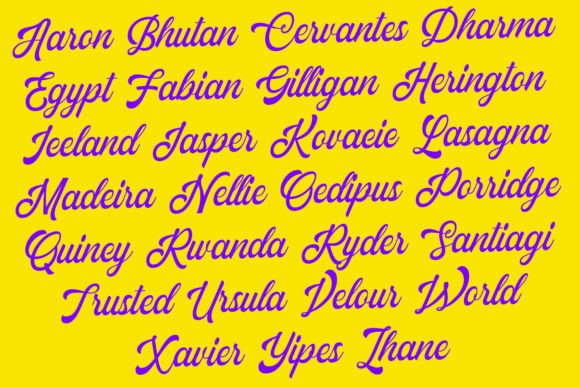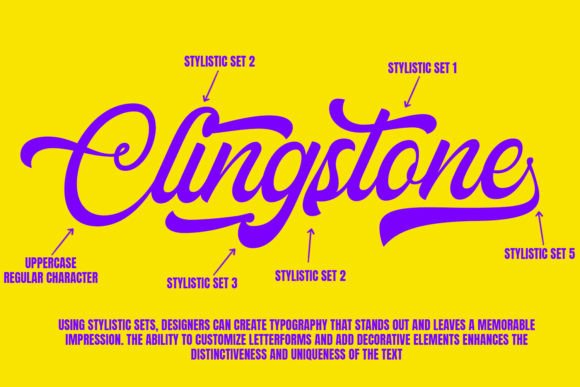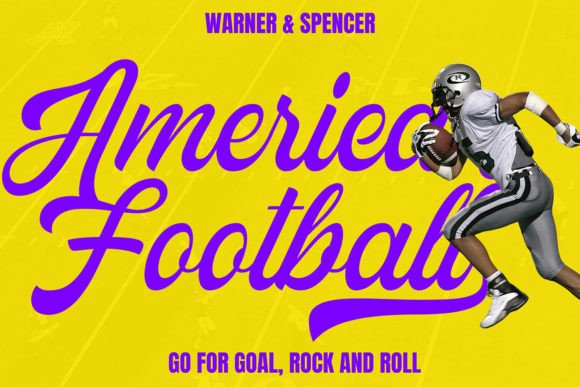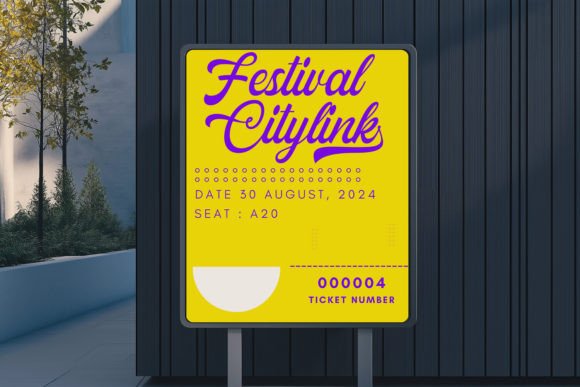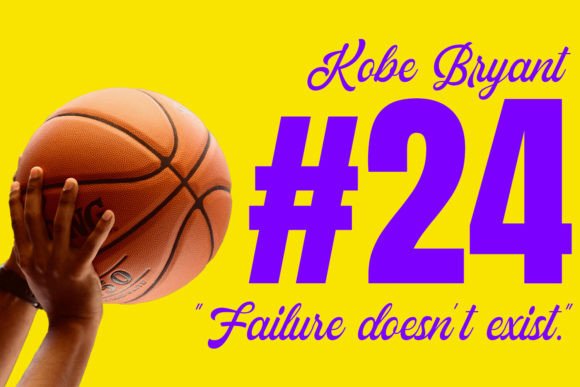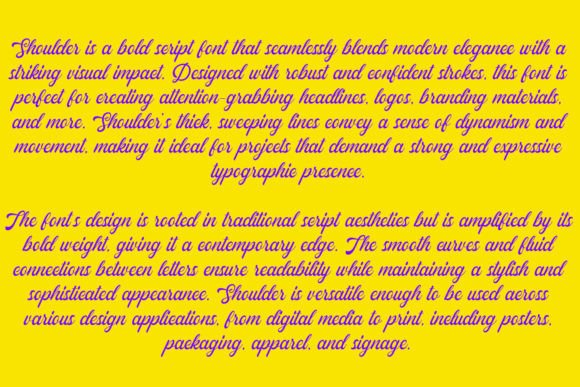
Introduction to Shoulder Font
Have you ever stared at a blank page, waiting for that spark of creativity to strike? It’s a feeling every designer knows all too well. But sometimes, all it takes is one font to set the tone for an entire project. For me, that font is the Shoulder Font – a bold script font that exudes elegance and assertiveness.
Whether you’re working on a high-profile branding project or a simple packaging design, the Shoulder Font is a versatile and reliable choice. Its flowing letterforms make it perfect for logos, headlines, and any other design element where you want to make a statement. And the best part? With a high-quality font like this, you can create stunning designs with a transparent background, giving your project a polished and professional look.
Key Features of Shoulder Font
- High-quality font design ideal for creative projects, offering a unique and stylish aesthetic.
- Features a transparent background, making it easy to customize and integrate into any design.
- Available in multiple sizes, with a minimum size of 48px and a maximum size of 240px, allowing for flexibility in design.
- Designed with a high resolution of 300 DPI, ensuring crisp and clear text even at large sizes.
- Perfect for use in logos, typography, and other design elements, adding a touch of sophistication and elegance to any creative project.
Honest Review: Shoulder Font
As a designer, I’m always on the lookout for high-quality fonts that can elevate my creative project. Recently, I came across the Shoulder Font, and I’m excited to share my honest review.
- ✨ The font has a unique, modern design that’s perfect for creating eye-catching headings.
- ✨ The font is highly versatile, suitable for a wide range of creative projects, from branding to publishing.
- ⚠️ The font doesn’t have a transparent background, which can make it difficult to use in certain design scenarios.
- ⚠️ Some characters may not render perfectly in certain fonts or at specific sizes.
Overall, I’m impressed with the Shoulder Font’s design quality and versatility. While it may have some limitations, it’s still a valuable resource for any designer. With a little creativity, you can work around the limitations and get the most out of this fantastic font.
Shoulder Font
Shoulder Font is ideal for use in creative projects that require a clean and modern look. It’s a great choice for business cards, brochures, and other marketing materials. You can also use it in presentations, such as PowerPoint or Google Slides, to add a professional touch. Additionally, the font’s transparent background makes it easy to use in designs with complex backgrounds.